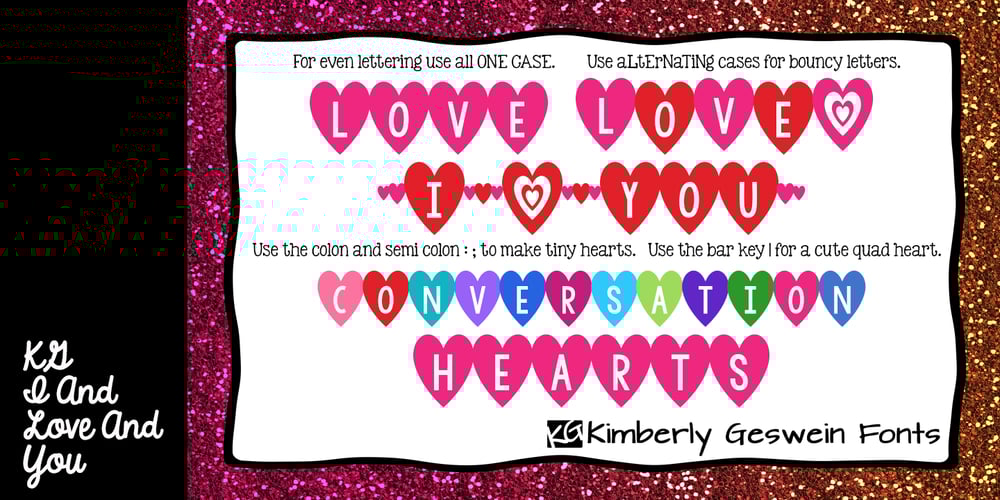
KG I And Love And You Font Family was designed by Kimberly Geswein and published by Kimberly Geswein. KG I And Love And You contains 1 styles and family package options. Conversation hearts! Use ALL CAPS for even lettering. For bouncy letters, alternate uPpEr and LoWeR cases to make the letters bounce up and down.